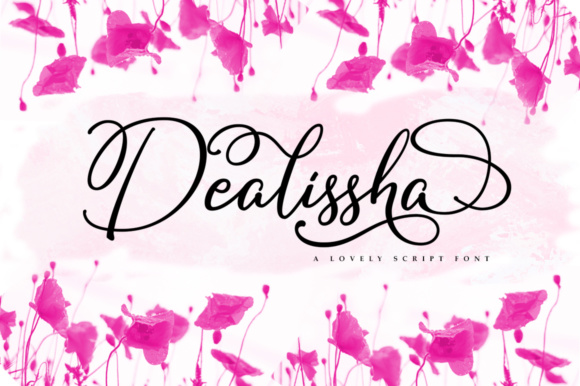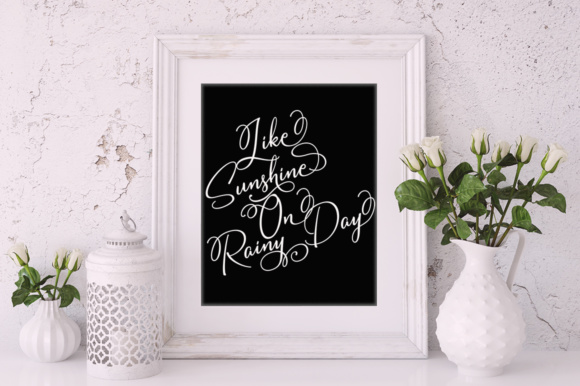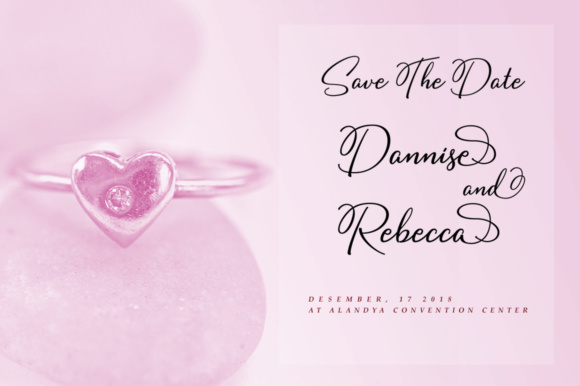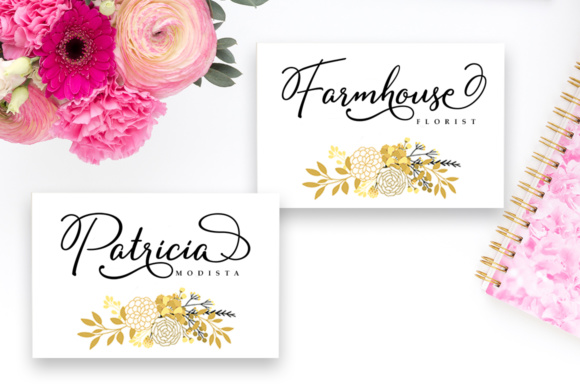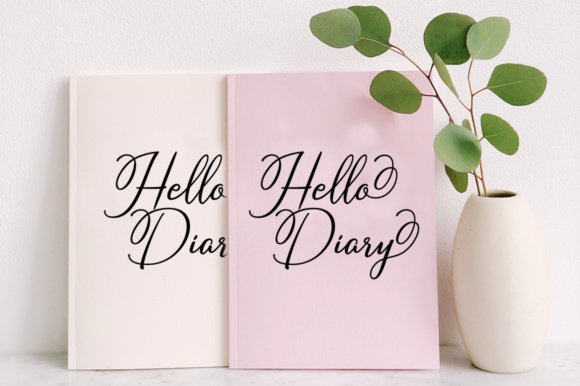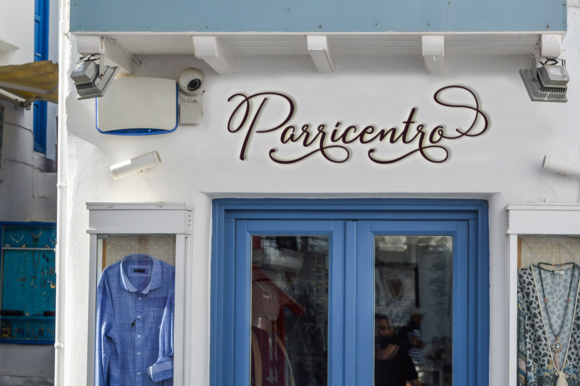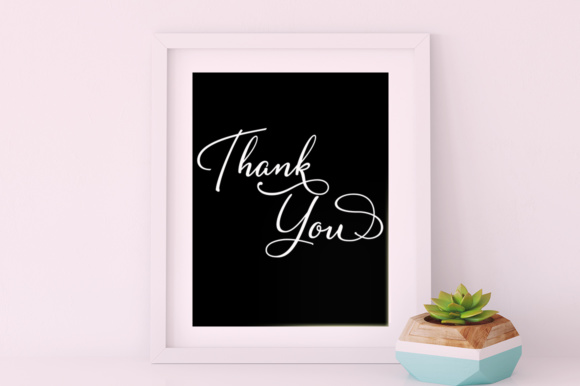
Dealissha Script Font
About Dealissha Script Font
Dealissha is a lovely script font with a feminine feel. It was built with OpenType features and includes many beginning and ending swashes to give your design an elegant touch.
You can toggle between both the regular and swahes font to get a handwritten, professional look.